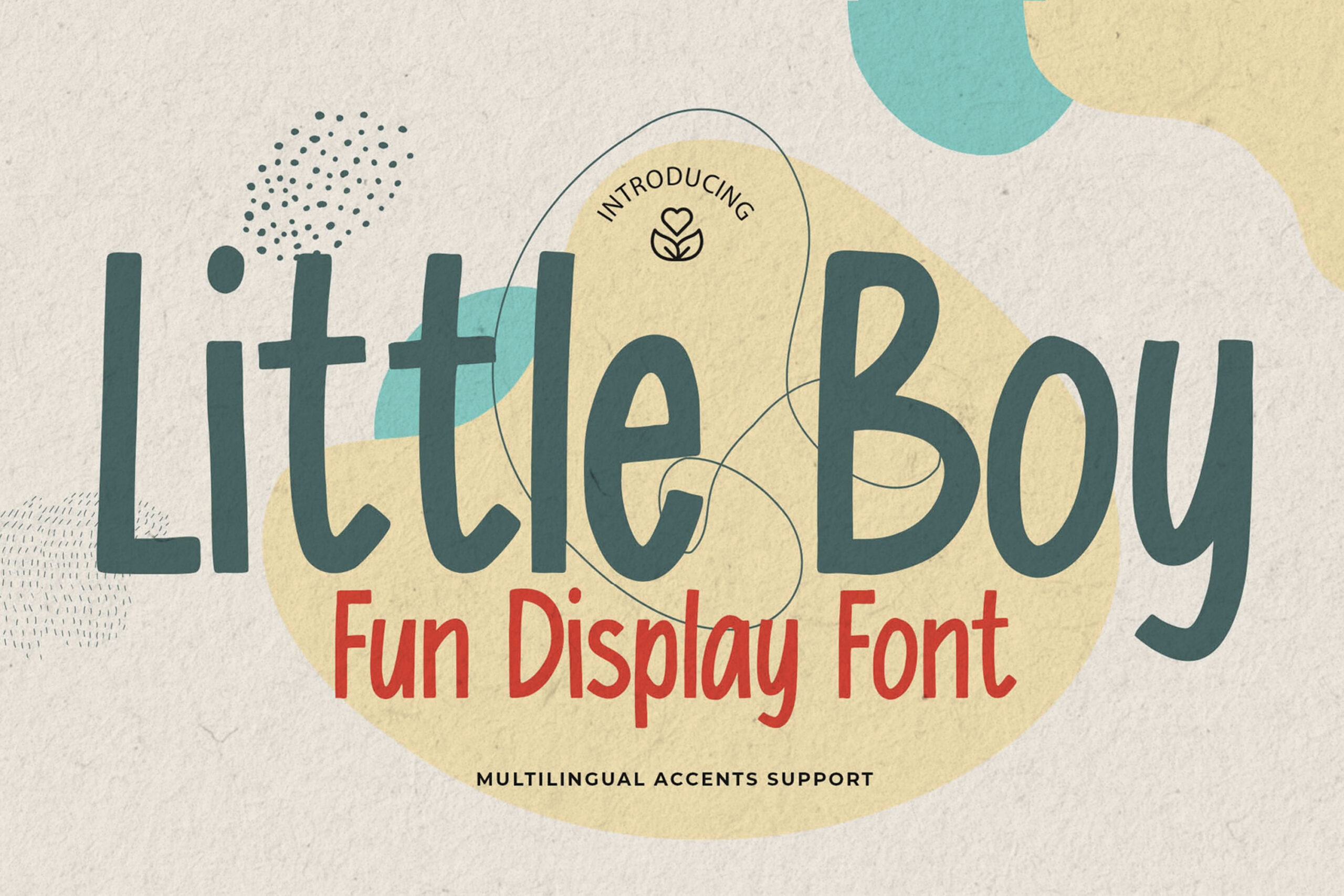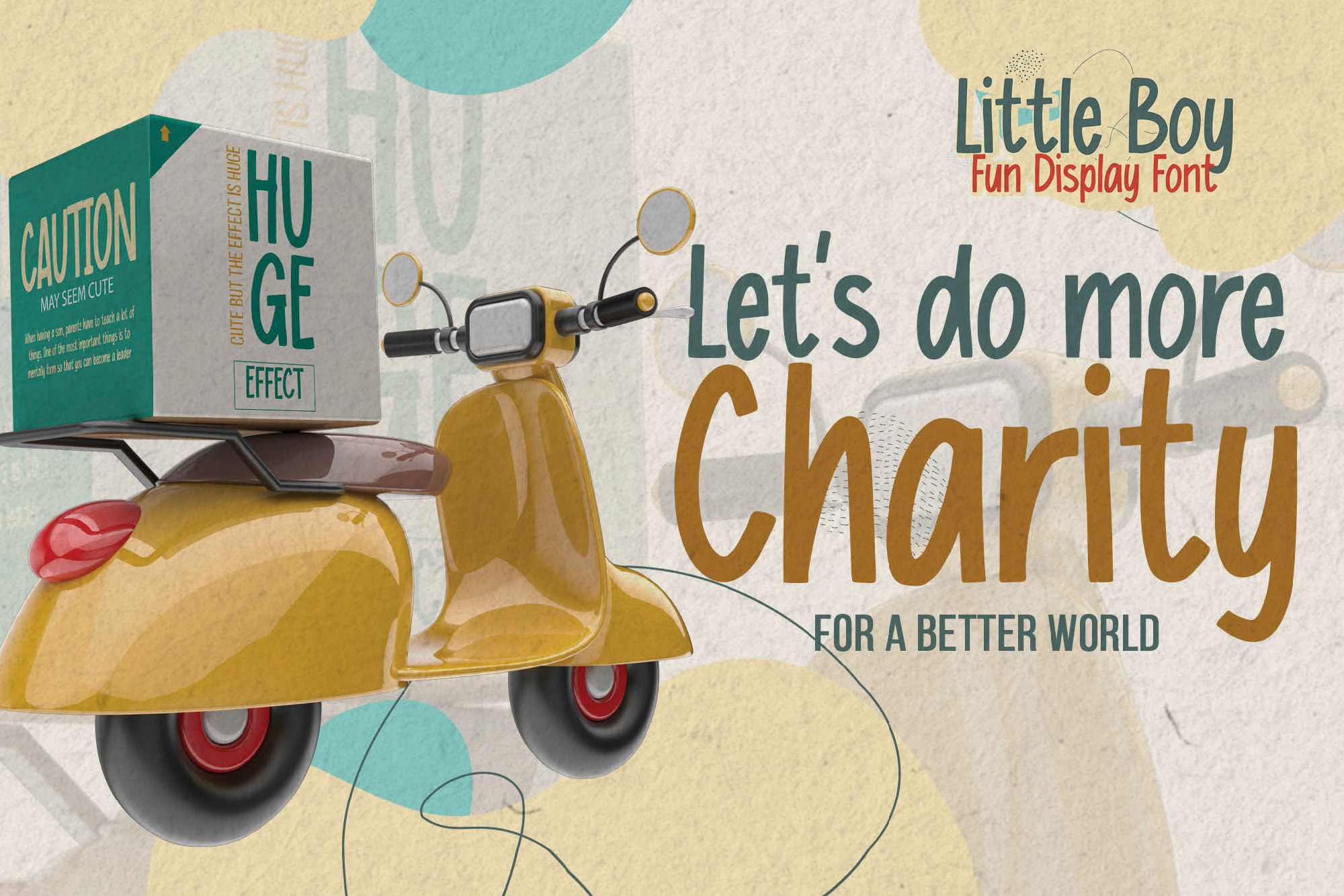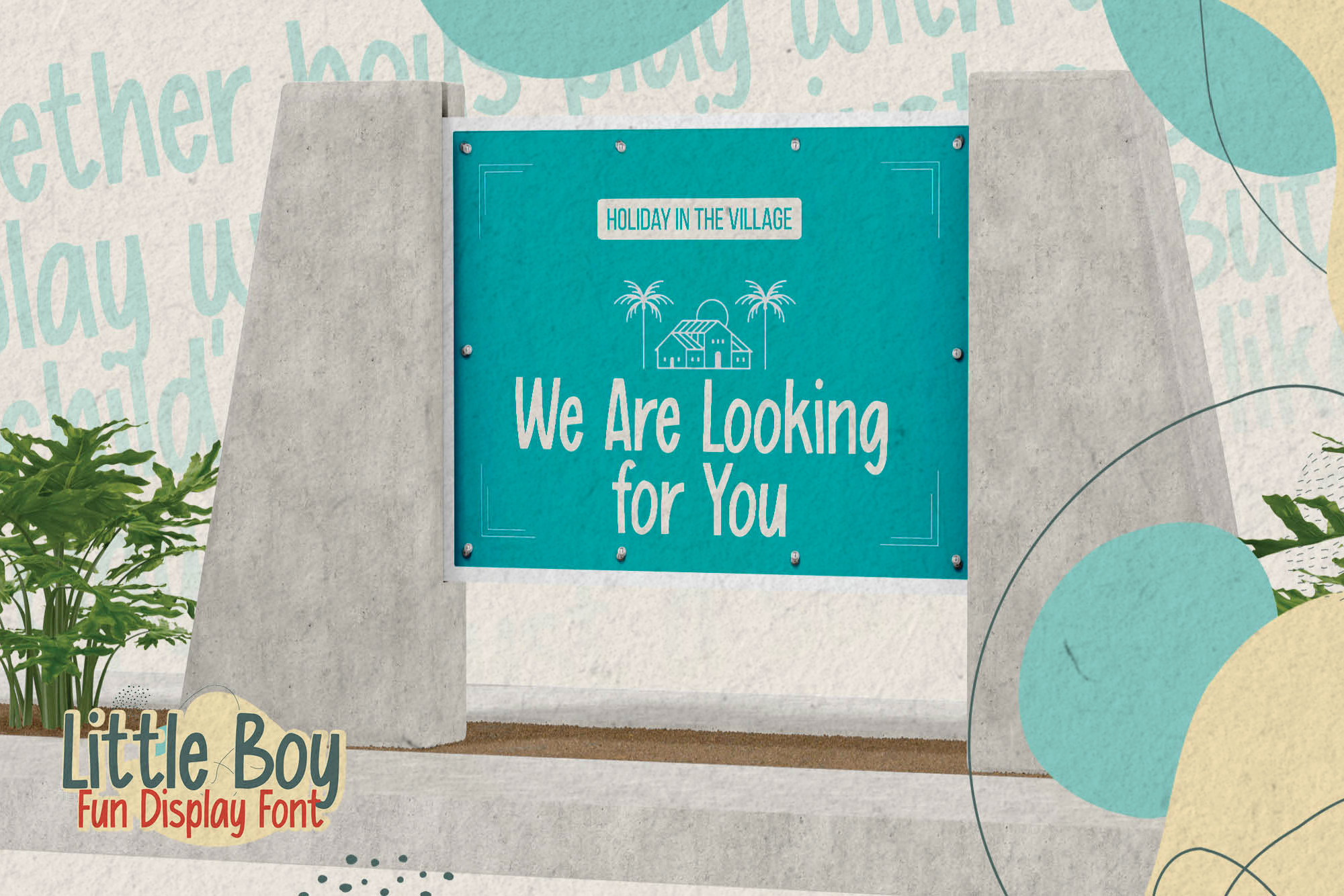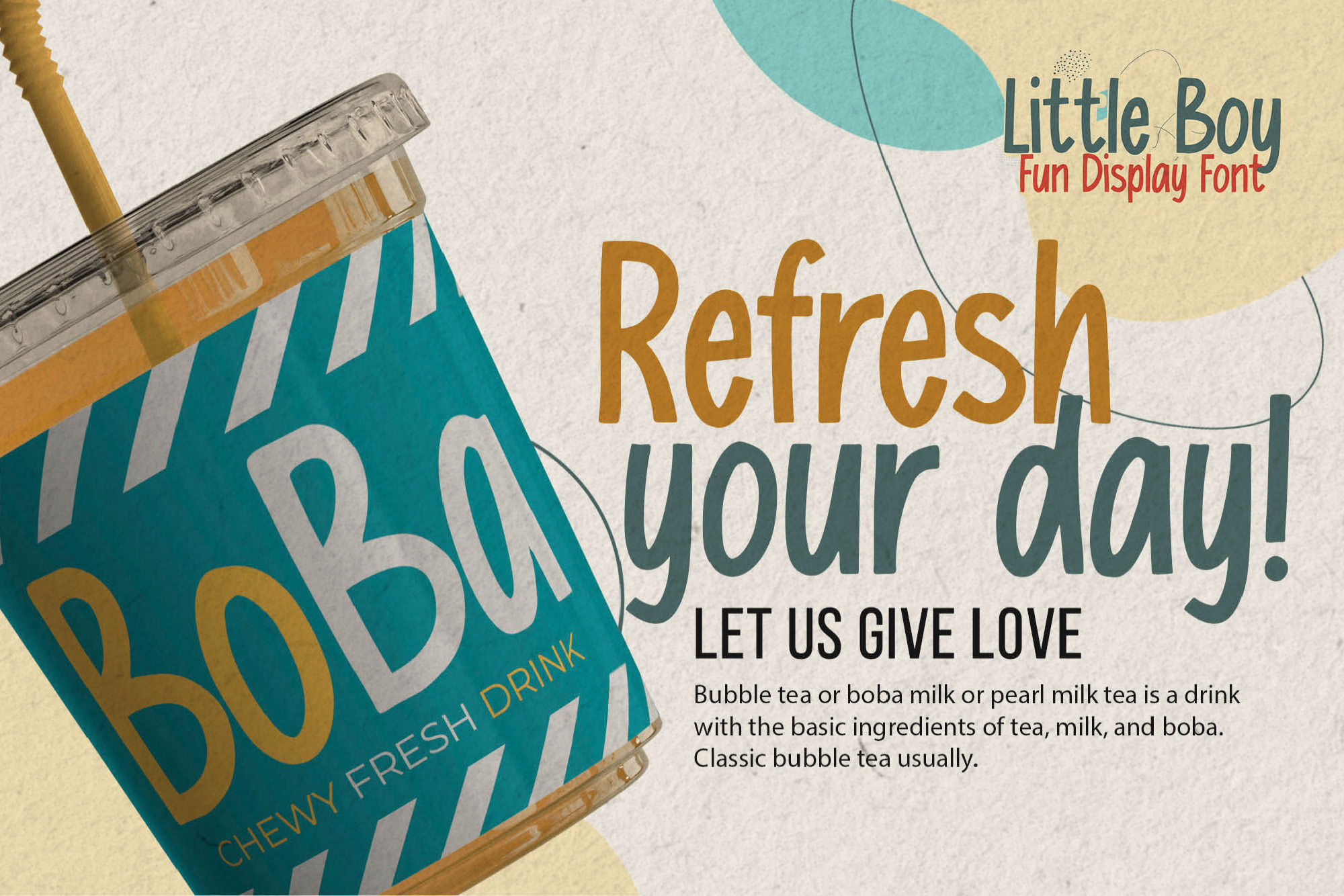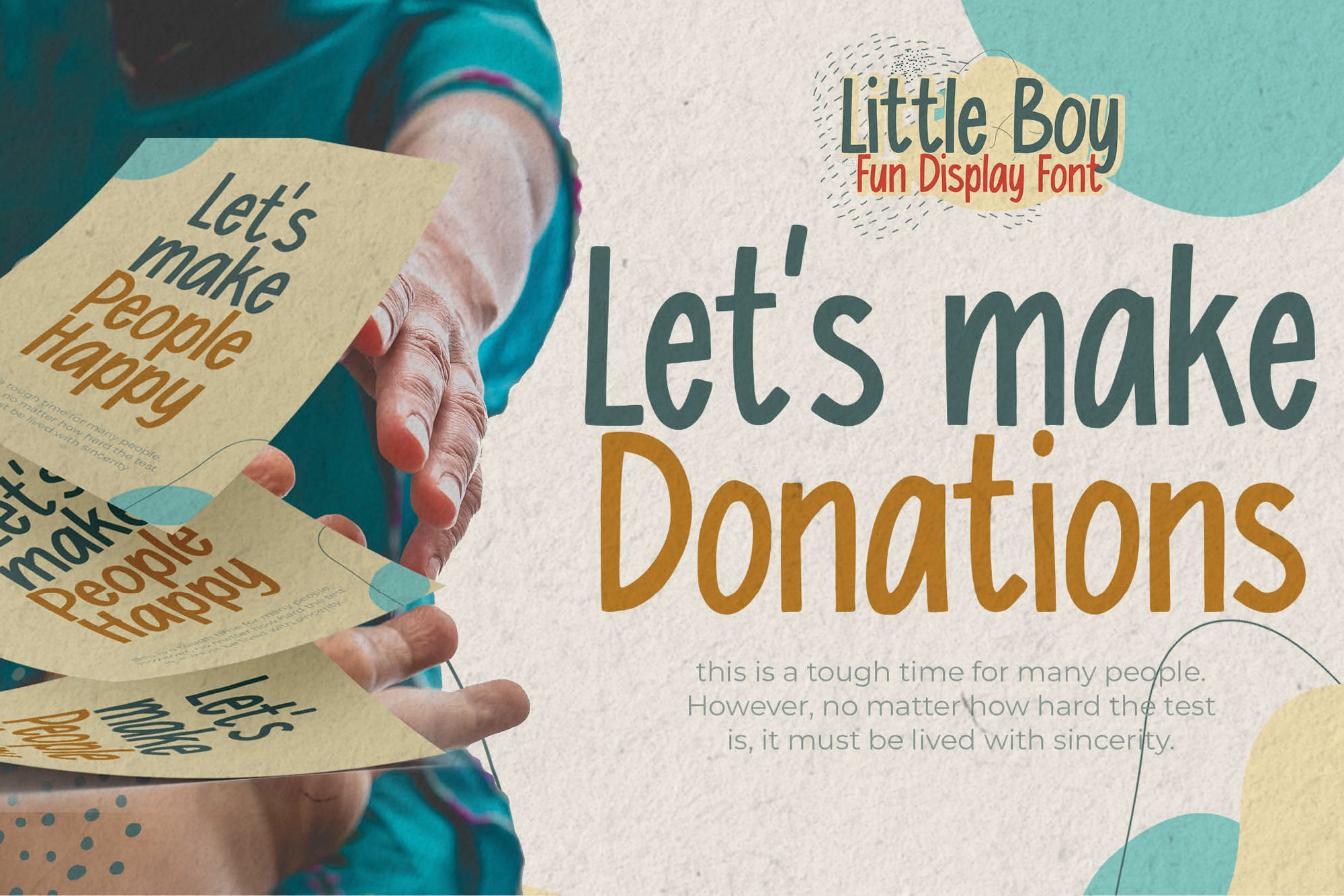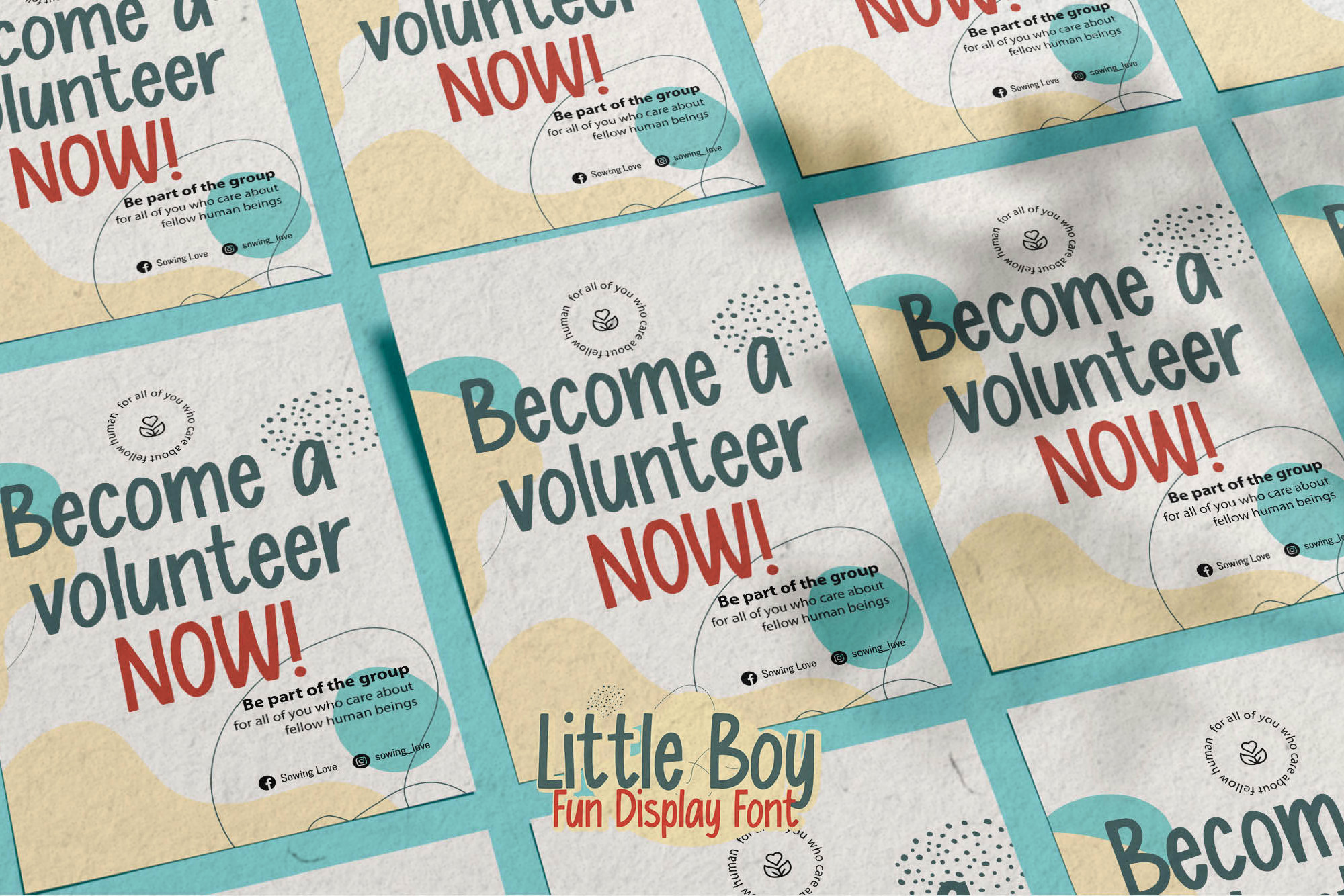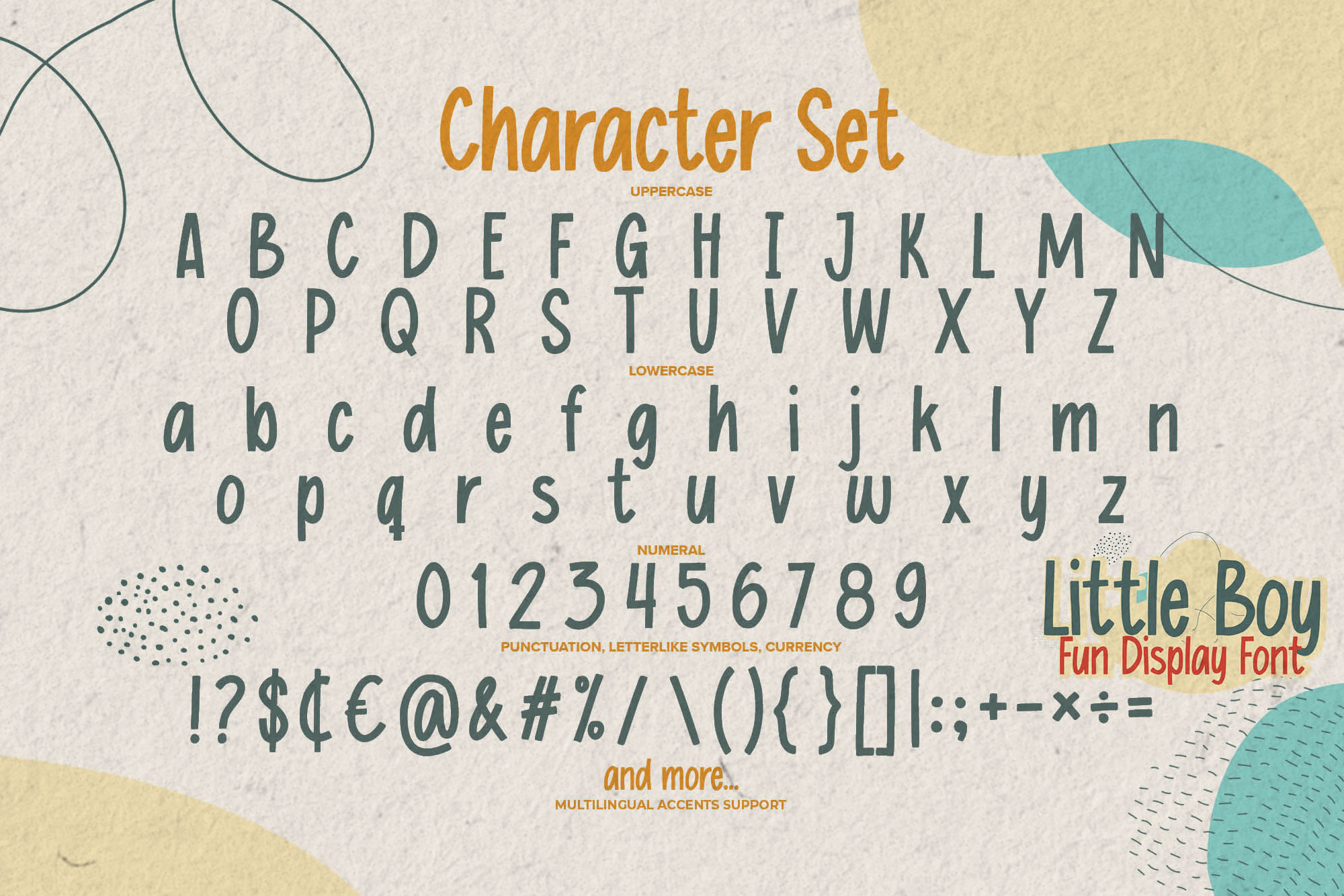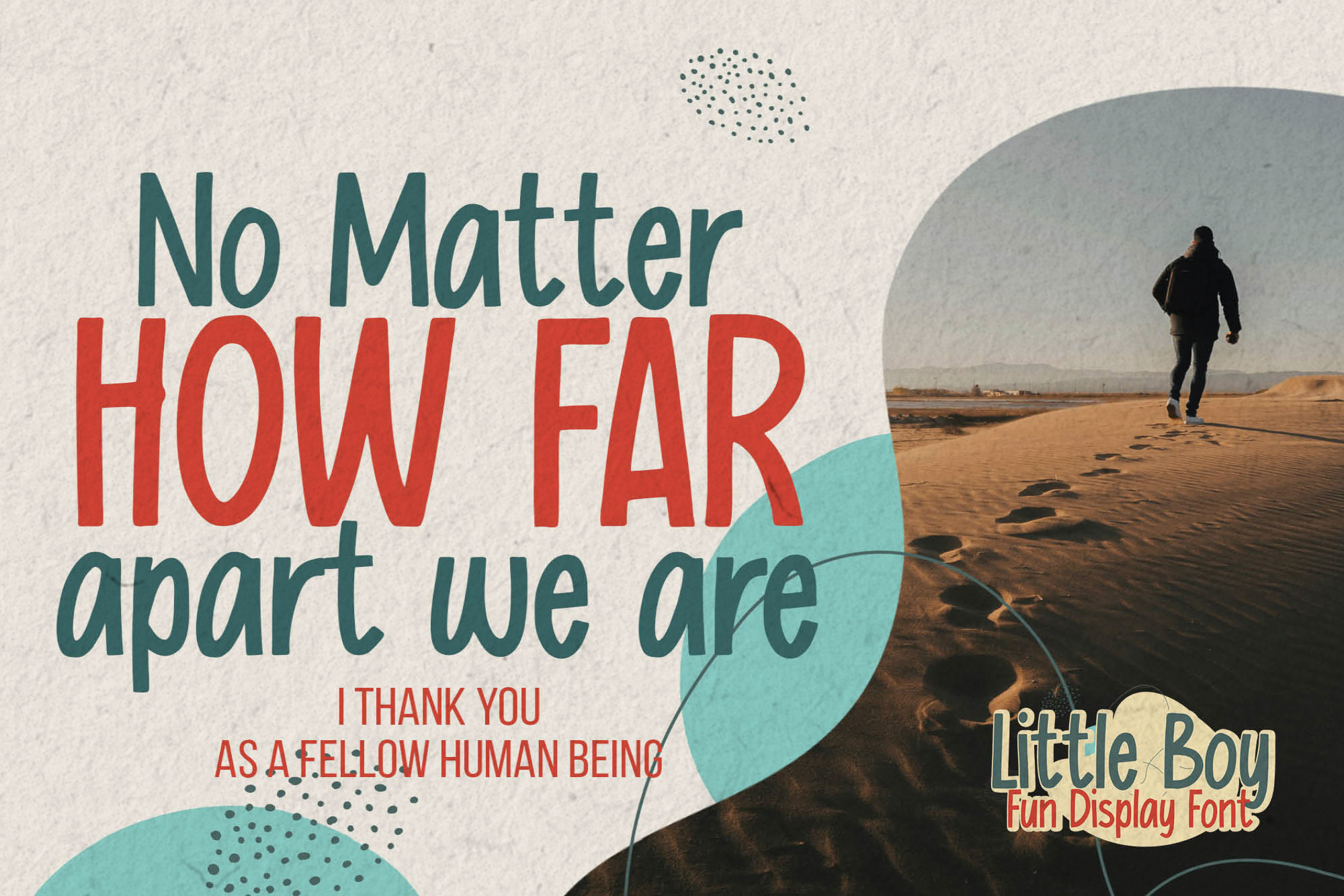
Little Boy – Fun Display Font,cute and unique is an that is written casually and quickly.
That is why Little Boy has cartoon and unique characteristic more natural look to your text with a more modern look to your text. Perfect for designs, branding projects, Logo design,Quotes product packaging and another Project that require font.